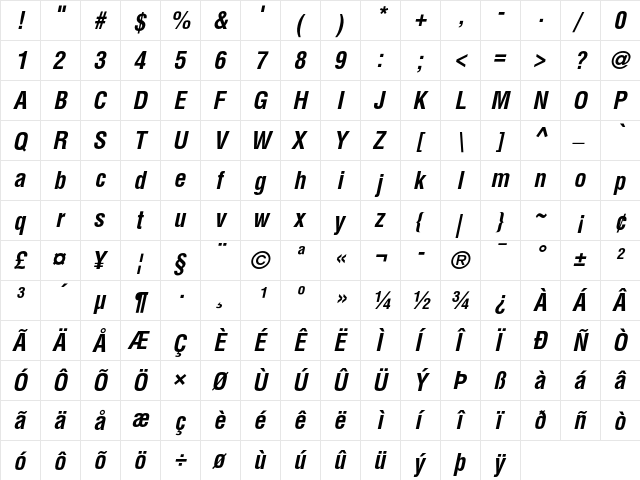
Helvetica Bold Condensed Oblique Font Preview
Design Context for Helvetica Typeface
Helvetica takes a measured approach to typography — its balanced proportions and neutral character make it a reliable workhorse for both digital and print work. Its italic angle brings a sense of urgency and motion to the letterforms. The heavy weight commands attention and anchors typographic hierarchies. The condensed width makes it efficient for tight spaces without sacrificing legibility.
Pro Tip: Use Helvetica for emphasis, pull quotes, and subheadings where its slanted energy can add rhythm to the layout.